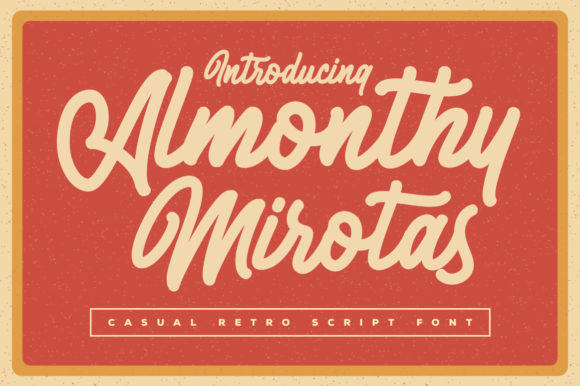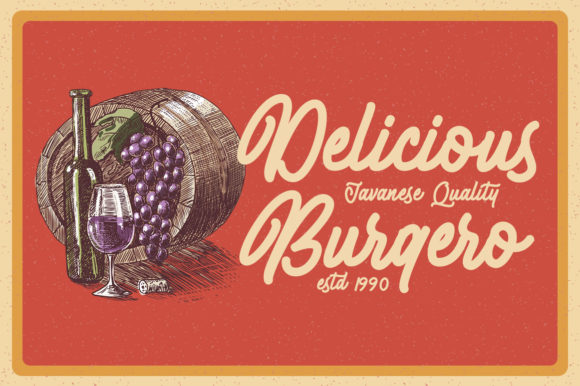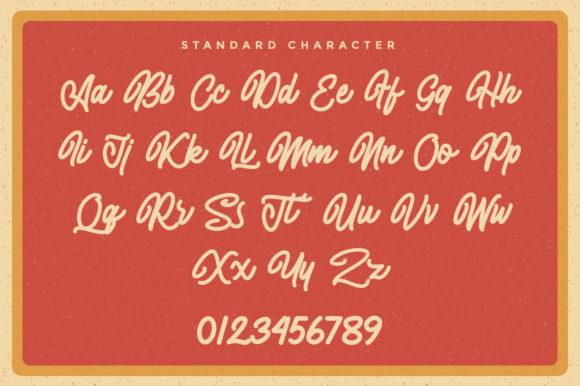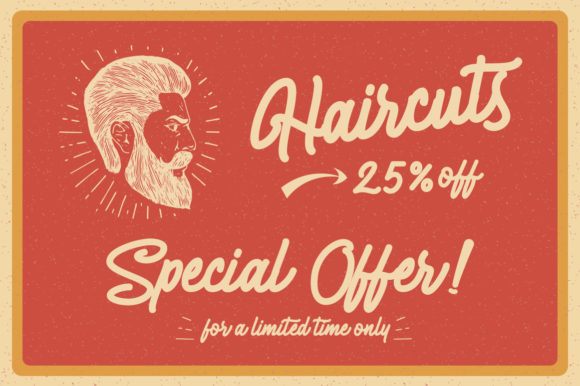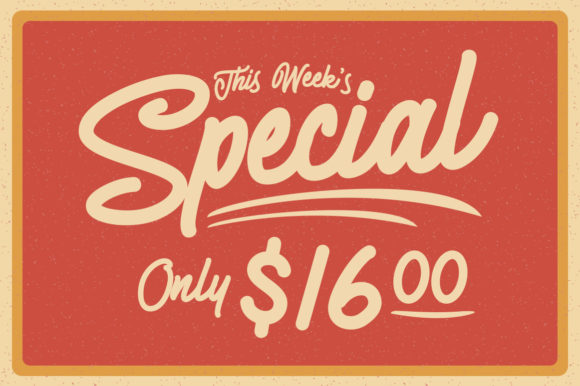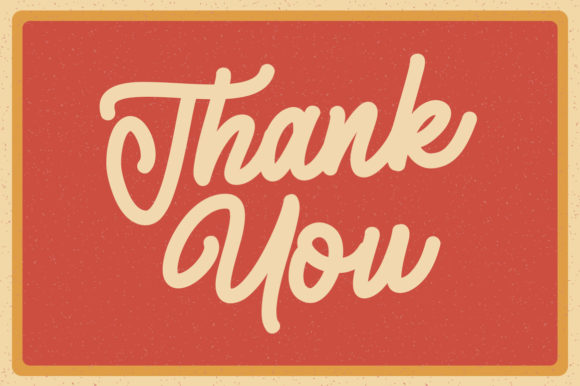
Almonthy Mirotas Font
About Almonthy Mirotas Font
Almonthy Mirotas is a stunning handwritten font with retro or vintage style. Use it to add a classic touch to any design project!